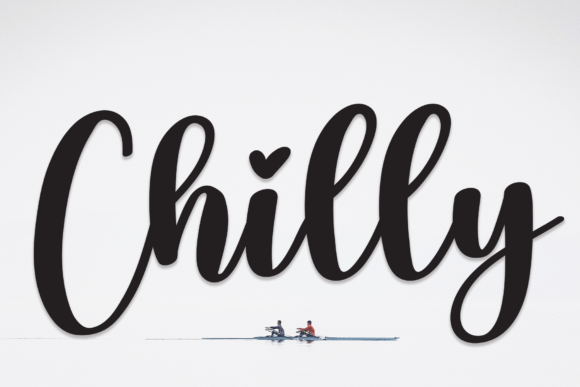
Introducing Chilly Font, a captivating script font created by andikastudio. This exquisite font is specifically designed for those seeking the perfect touch of elegance and sophistication for their projects. Whether you're planning a dreamy wedding, creating stunning wall displays, or adding a personal touch to your brand, Chilly Font is the ultimate choice.
With its latest style letters, Chilly Font effortlessly adds a handwritten taste to any design. Imagine the enchanting beauty of this font gracing your wedding invitations, capturing the hearts of your guests from the very first glance. Its graceful curves and exquisite details will make your invitations truly unforgettable.
But it doesn't stop there. Chilly Font is a versatile tool that goes beyond weddings. Its timeless appeal makes it ideal for social media post logos, advertisements, and product packaging. Let your creativity soar as you create captivating designs, labels, and product presentations that leave a lasting impression on your audience.
Capture the essence of professional photography with Chilly Font. Add a touch of elegance to your watermarks and stationery, elevating your brand image and setting yourself apart from the competition. This font is the perfect companion for any project that requires a refined and sophisticated aesthetic.
Chilly Font is more than just a font; it's an experience. It's a journey into the world of captivating design, where every stroke tells a story. Let your projects speak volumes with the emotional and creative power of Chilly Font.